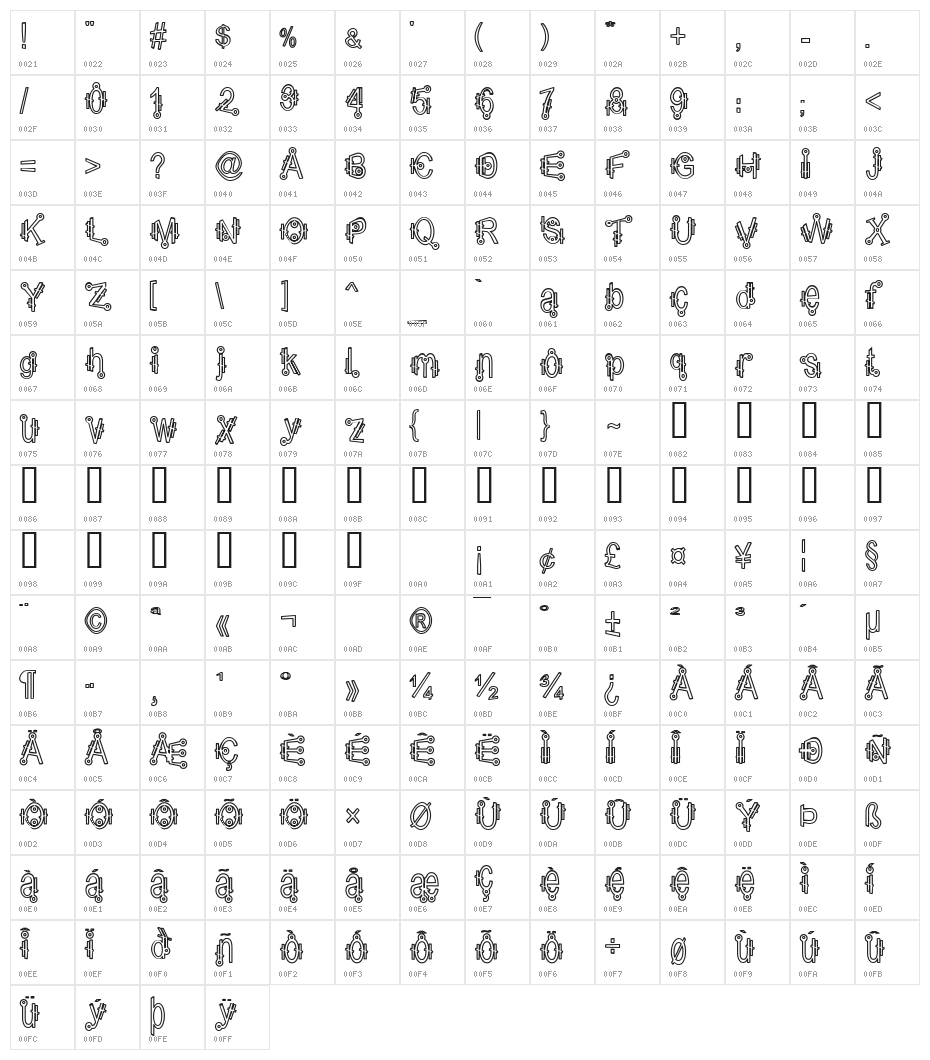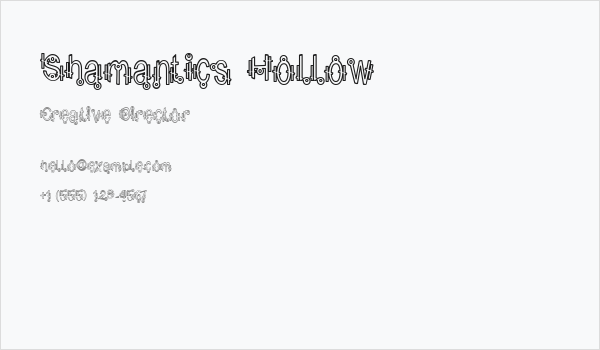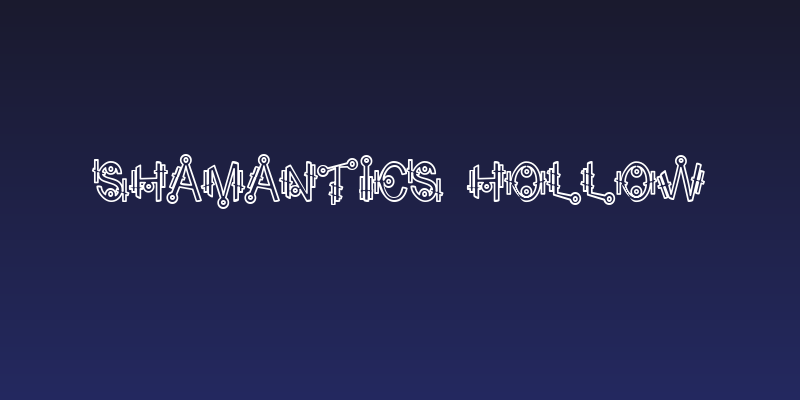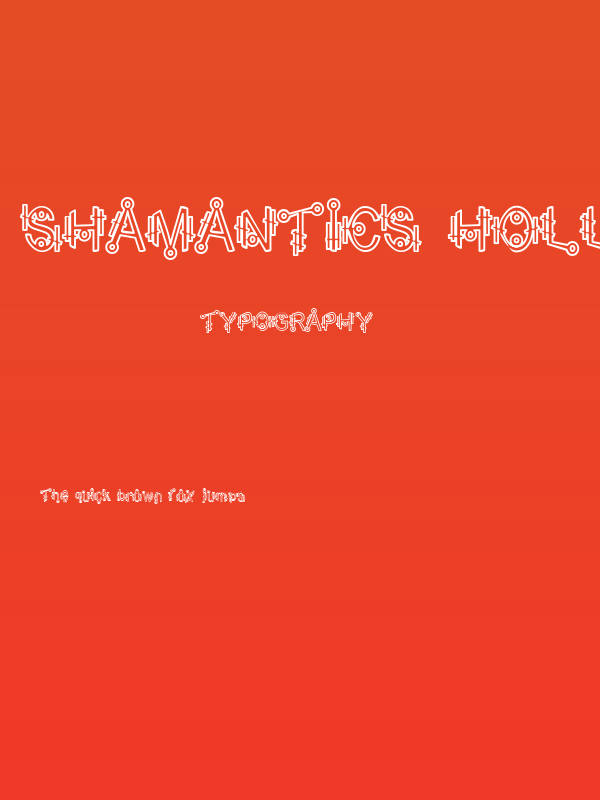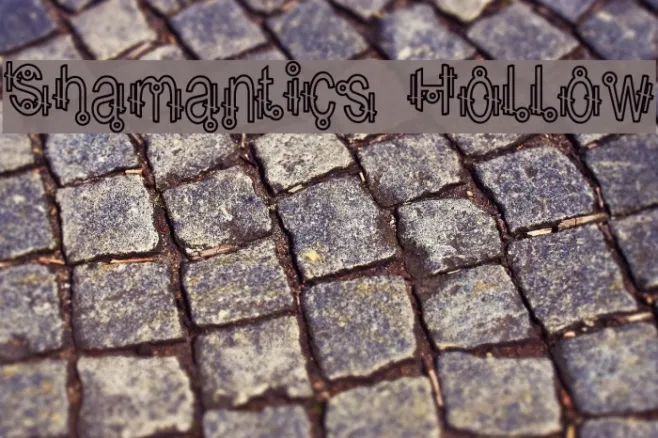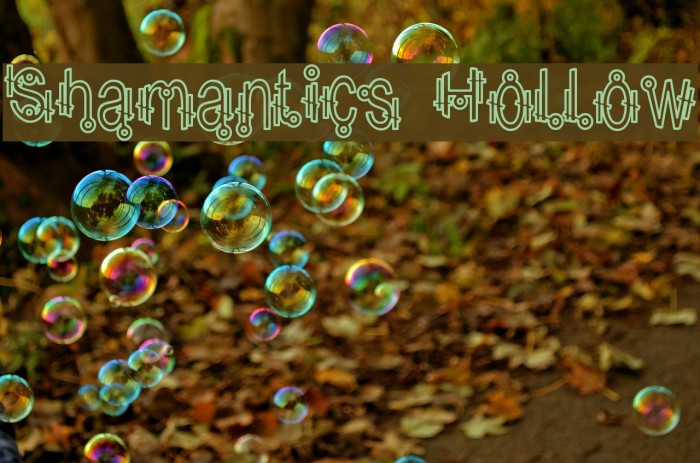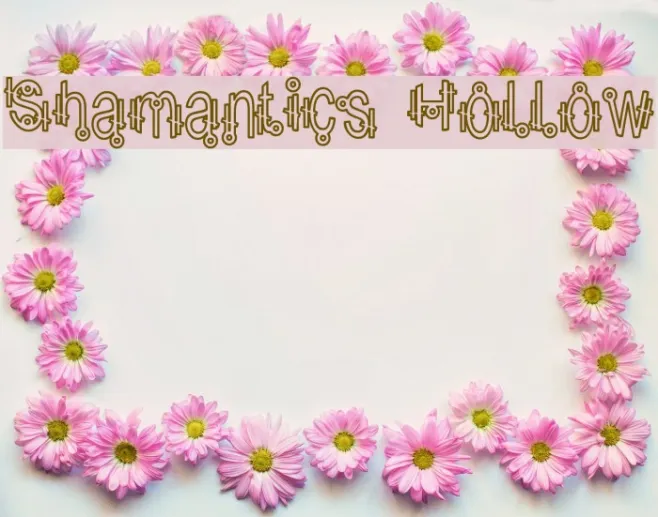
Shamantics Hollow Font
Shamantics Hollow Description
This font features a unique and playful design with hollow, outlined characters that incorporate circular and linear elements, giving it a mechanical and futuristic vibe. The uppercase and lowercase letters, along with numbers and special characters, maintain a consistent style that is both eye-catching and distinctive. The font's structure is bold and geometric, with each character displaying a combination of straight lines and rounded edges, creating a sense of movement and dynamism. The hollow nature of the font adds an extra layer of depth and interest, making it suitable for creative and artistic projects.
| Overall Style | Futuristic, Playful, Mechanical |
| Proposed Projects | Ideal for creative projects such as posters, album covers, video game graphics, and branding for tech-related products. |